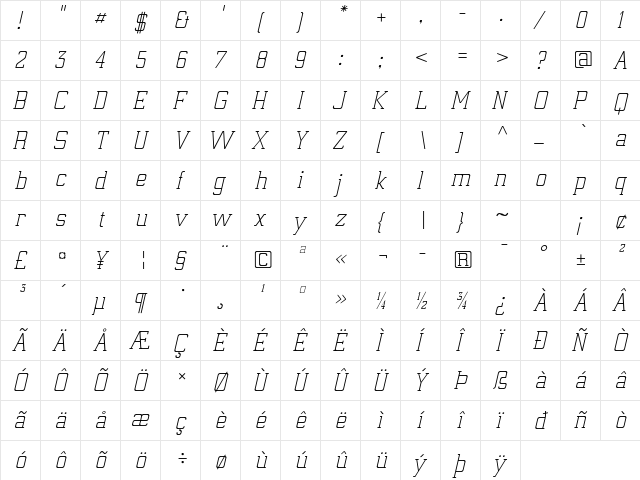
Electrum ADF Exp Lt Italic
| Foundry | Arkandis Digital Foundry. |
| Designer | Hirwen HARENDAL |
Design Context for Electrum ADF Exp Lt Typeface
Electrum ADF Exp Lt is a composed and adaptable typeface that performs quietly and consistently across a wide range of design contexts. Its italic angle brings a sense of urgency and motion to the letterforms. Its slender proportions lend an understated elegance to any composition.
Pro Tip: Use Electrum ADF Exp Lt for emphasis, pull quotes, and subheadings where its slanted energy can add rhythm to the layout.